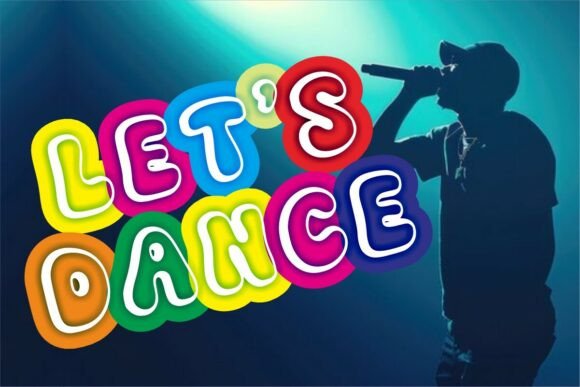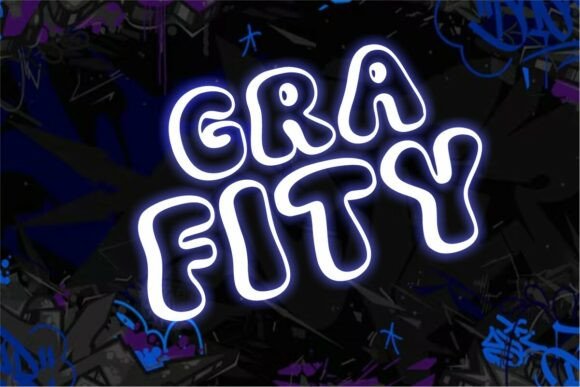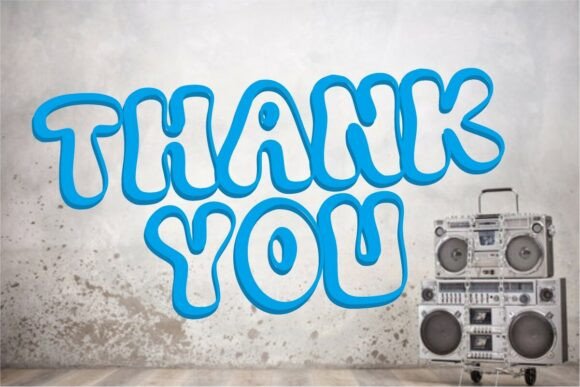
Introduction to Hiphop Font
Have you ever stumbled upon a font that makes you feel like dancing? For designers, it’s a rare and magical moment when a perfect typeface comes along and elevates a project to new heights. That’s exactly what happens when you discover the Hiphop Font – a vibrant, dance-inspired display font that screams fun and relaxation.
With its clean lines and laid-back feel, the Hiphop Font is a design resource that’s perfect for summer posters, event flyers, and playful branding. Its high quality and versatility make it a valuable addition to any designer’s toolkit, offering endless possibilities for creative projects. Whether you’re looking to create a memorable event flyer or a cheerful brand identity, the Hiphop Font is the perfect companion.
Key Features of Hiphop Font
- High-quality, bold font design ideal for creative projects, music festivals, and urban events.
- Includes 5 font styles: Regular, Bold, Italic, Bold Italic, and Outline, for added versatility.
- Perfect for use in posters, flyers, social media graphics, and other visual materials where a bold, eye-catching font is needed.
Honest Review: Hiphop Font
I recently stumbled upon the Hiphop Font while searching for a high-quality design resource for my creative project. As a designer, I’m always on the lookout for unique and stylish fonts that can elevate my work.
Here’s what I like about the Hiphop Font:
- ✨ The font is incredibly versatile and can be used for a wide range of creative projects, from music albums to streetwear branding.
- ✨ The Hiphop Font features a transparent background, making it easy to use on different backgrounds and designs.
- ⚠️ The font may not be suitable for formal or corporate designs, as it has a more playful and edgy vibe.
- ⚠️ Some users may find the font a bit too bold or overwhelming, so it’s essential to use it in moderation.
Overall, I’m impressed with the Hiphop Font’s unique style and versatility. While it may not be the best fit for every design project, it’s definitely a great resource to have in your toolkit. With its transparent background and free download, it’s a must-have for designers who want to add some edge to their creative projects.
Tips for Getting the Most Out of Hiphop Font
To get the most out of Hiphop Font, use it in a creative project, such as a music festival flyer or a rap album cover. You can also combine it with other high-quality design resources, such as graphics and images, to create a unique and eye-catching design. Download the font for free and use it in your design resource library.
The Hiphop Font is ideal for use in creative projects, such as music festival flyers, rap album covers, and urban fashion designs. It’s also suitable for use in presentations, documents, and social media posts that require a bold and eye-catching font. Use the font to add a touch of urban style to your design and make it stand out from the crowd.